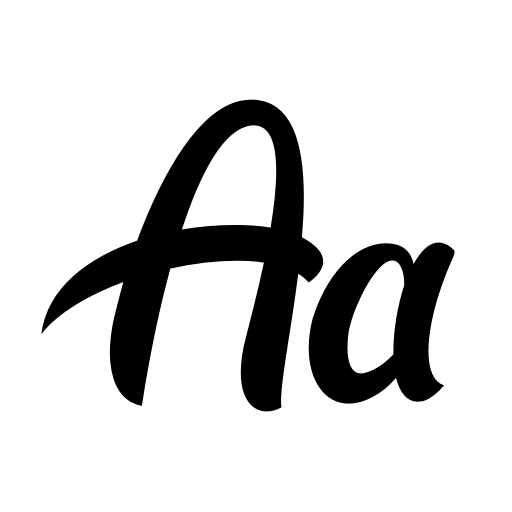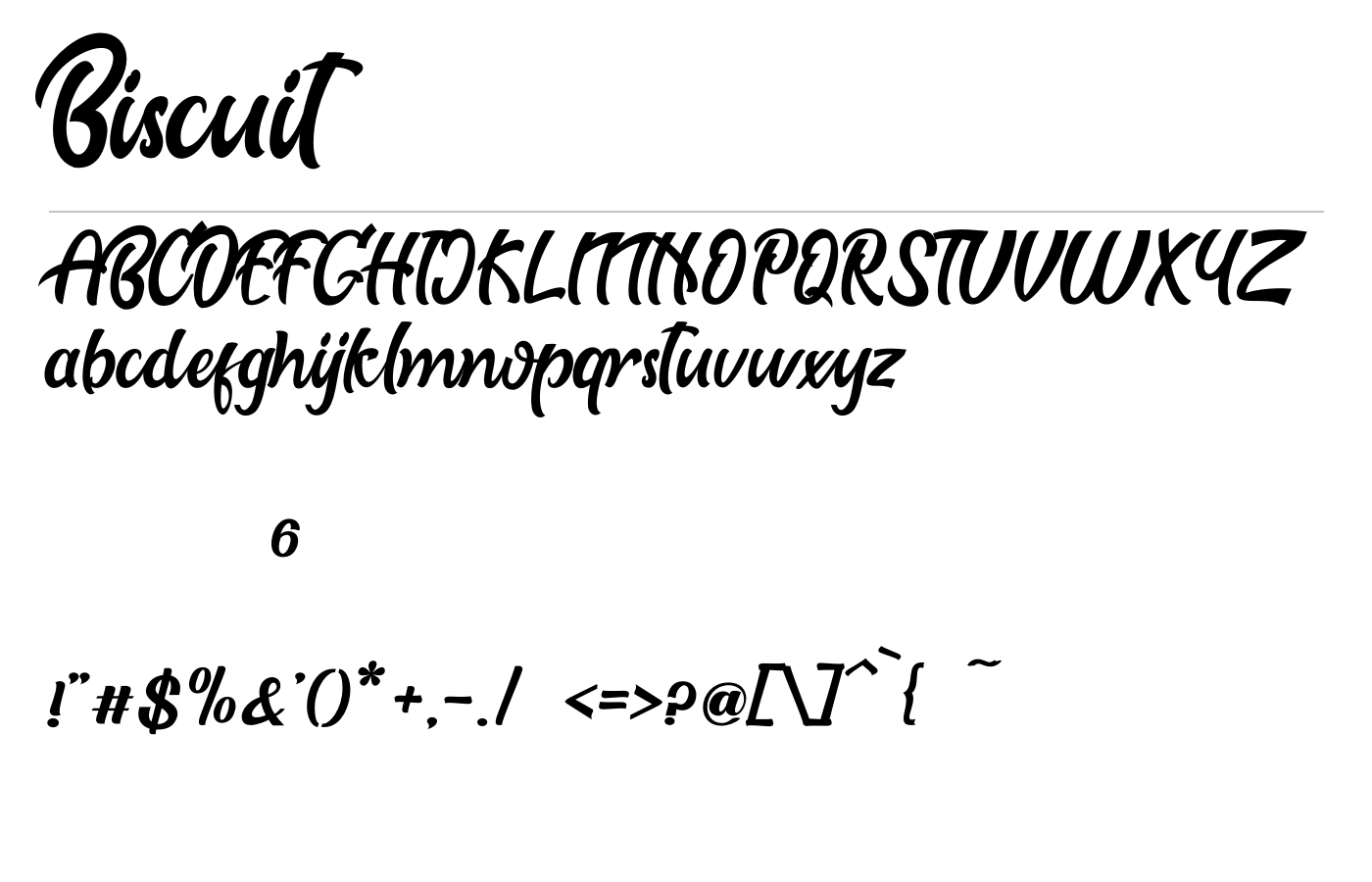
Biscuit Font is a lively and elegant script typeface featuring smooth, flowing strokes with a medium weight and slightly condensed width. Its playful yet polished style, characterized by fluid connections and a hand-lettered feel, makes it ideal for branding, packaging, and creative headlines where a warm, approachable personality is desired. This font works beautifully for projects needing a touch of charm and sophistication with a modern script flair.
Biscuit Font
About Biscuit Font